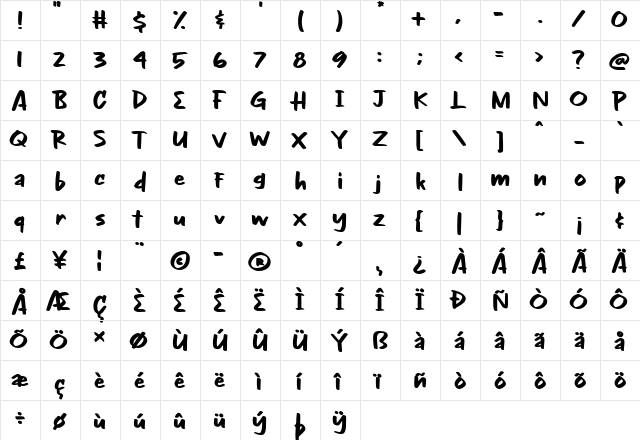
Night Glow Regular
| Designer | Dimas Prasetyo |
Design Context for Night Glow Typeface
Night Glow is a composed and adaptable typeface that performs quietly and consistently across a wide range of design contexts.